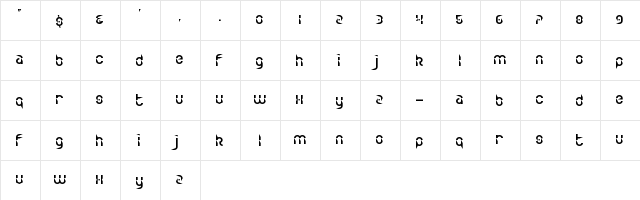
Zdyk Leo Regular
| Designer | Andrew McCluskey |
Design Context for Zdyk Leo Typeface
Zdyk Leo offers clean, dependable letterforms without strong stylistic allegiance, making it a practical choice for designers who need flexibility.